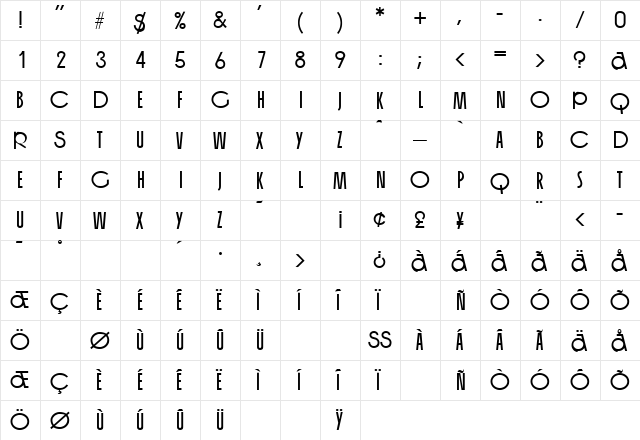
Organ DB Regular Font Preview
Organ DB Regular
Organ DB Regular Font Details
Design Context for Organ DB Typeface
Organ DB takes a measured approach to typography — its balanced proportions and neutral character make it a reliable workhorse for both digital and print work.